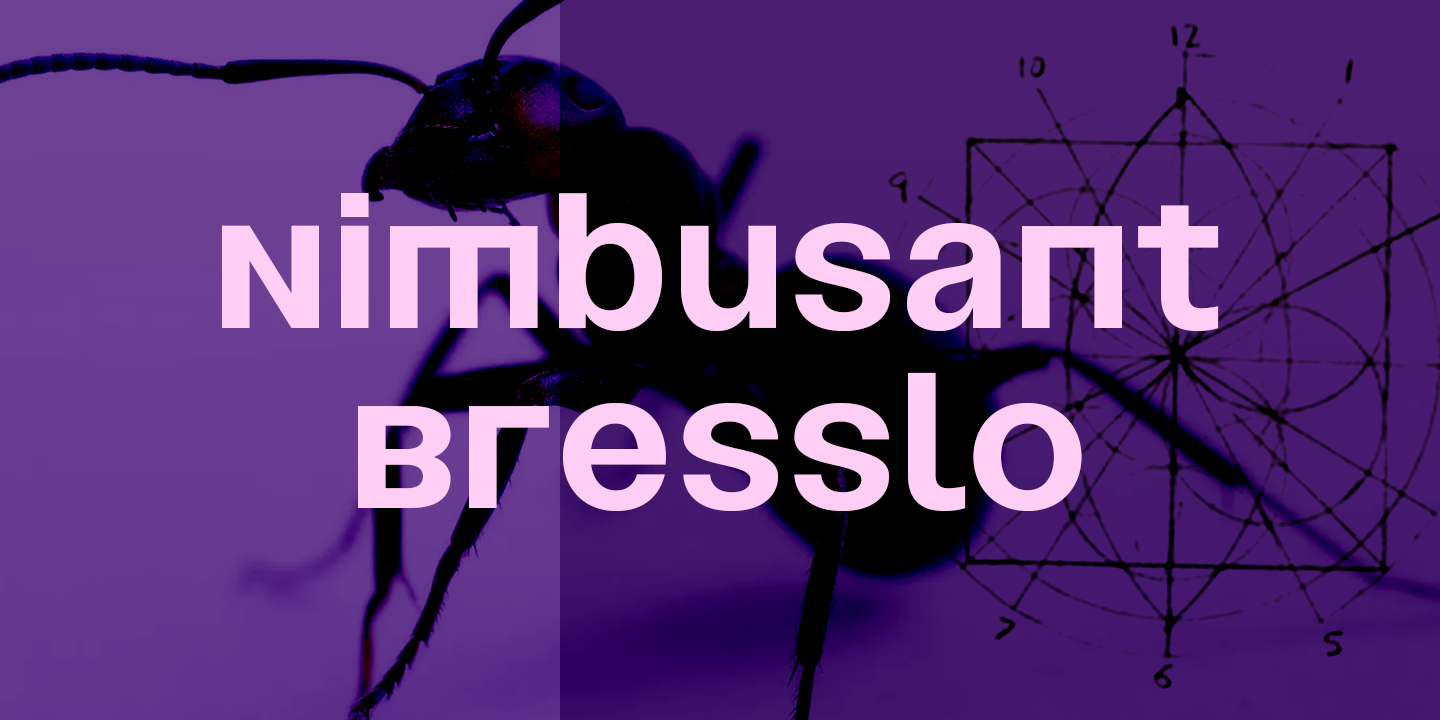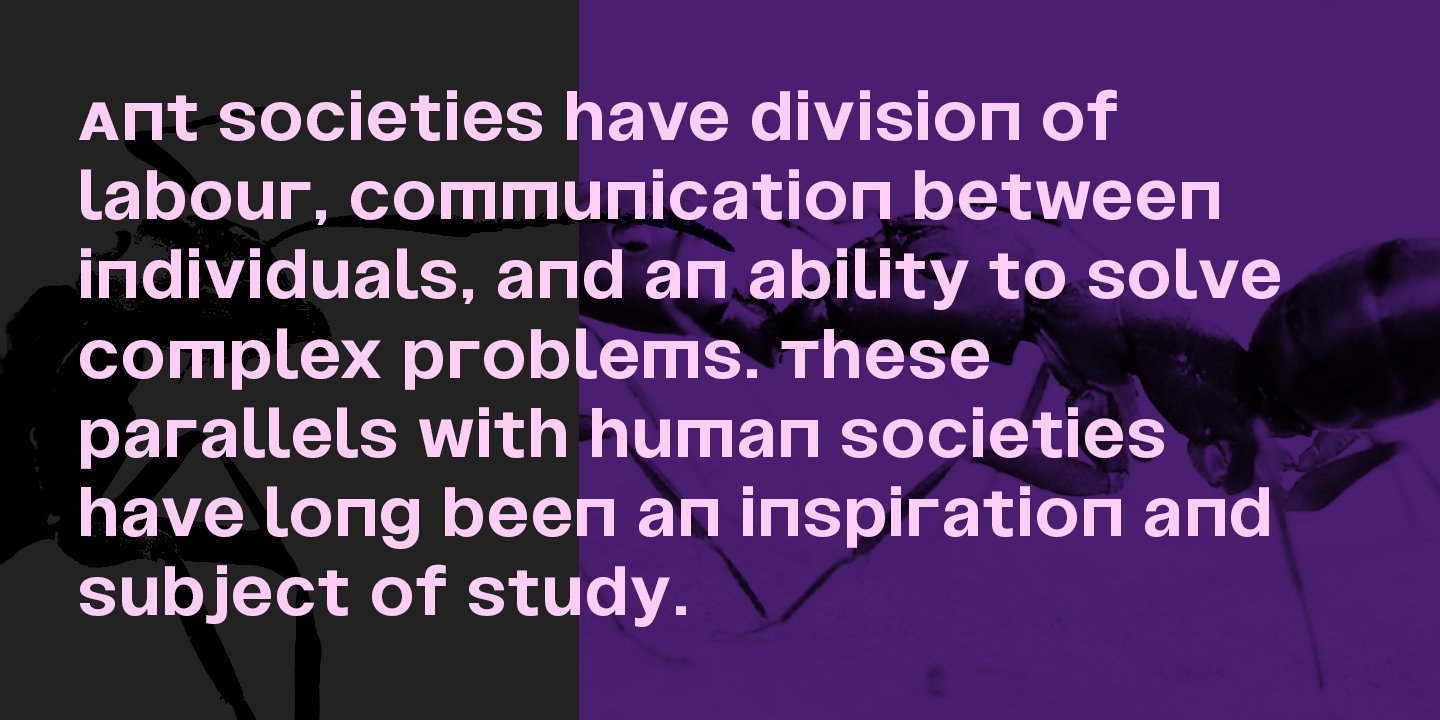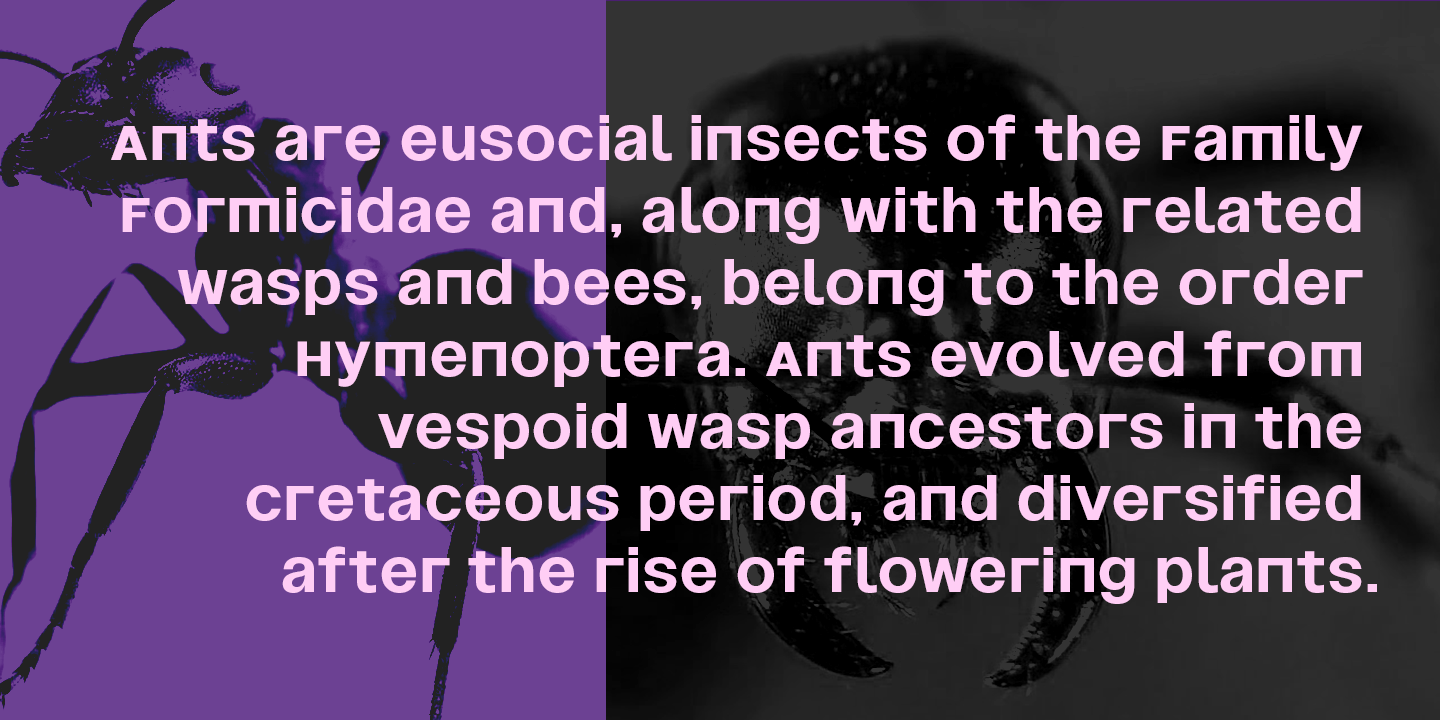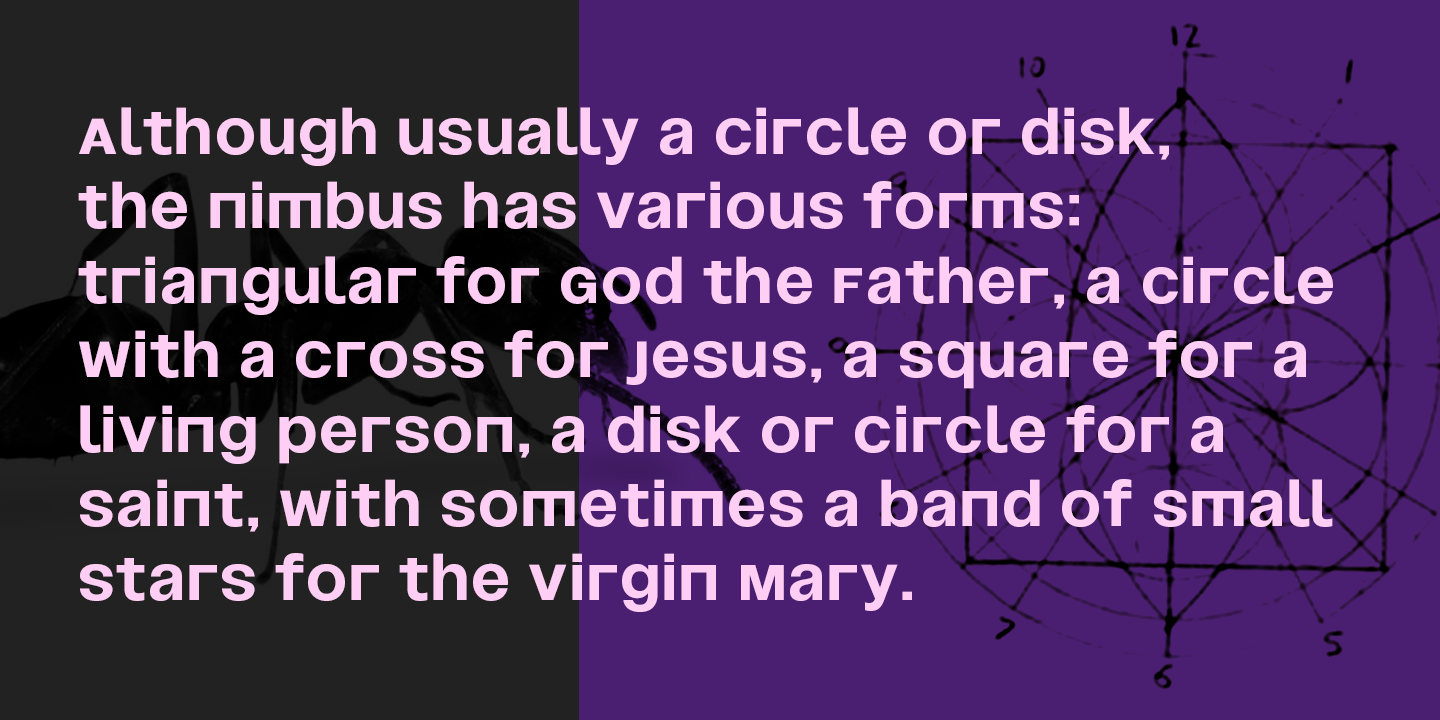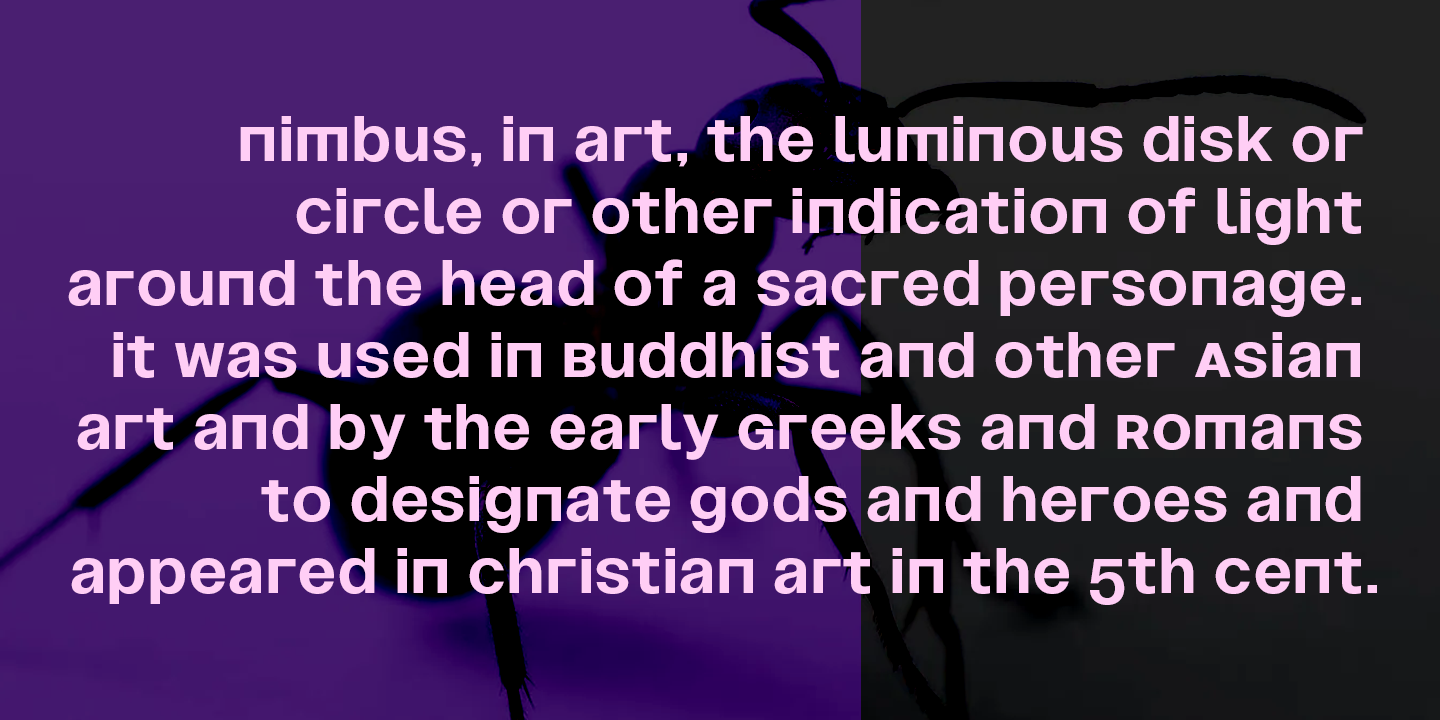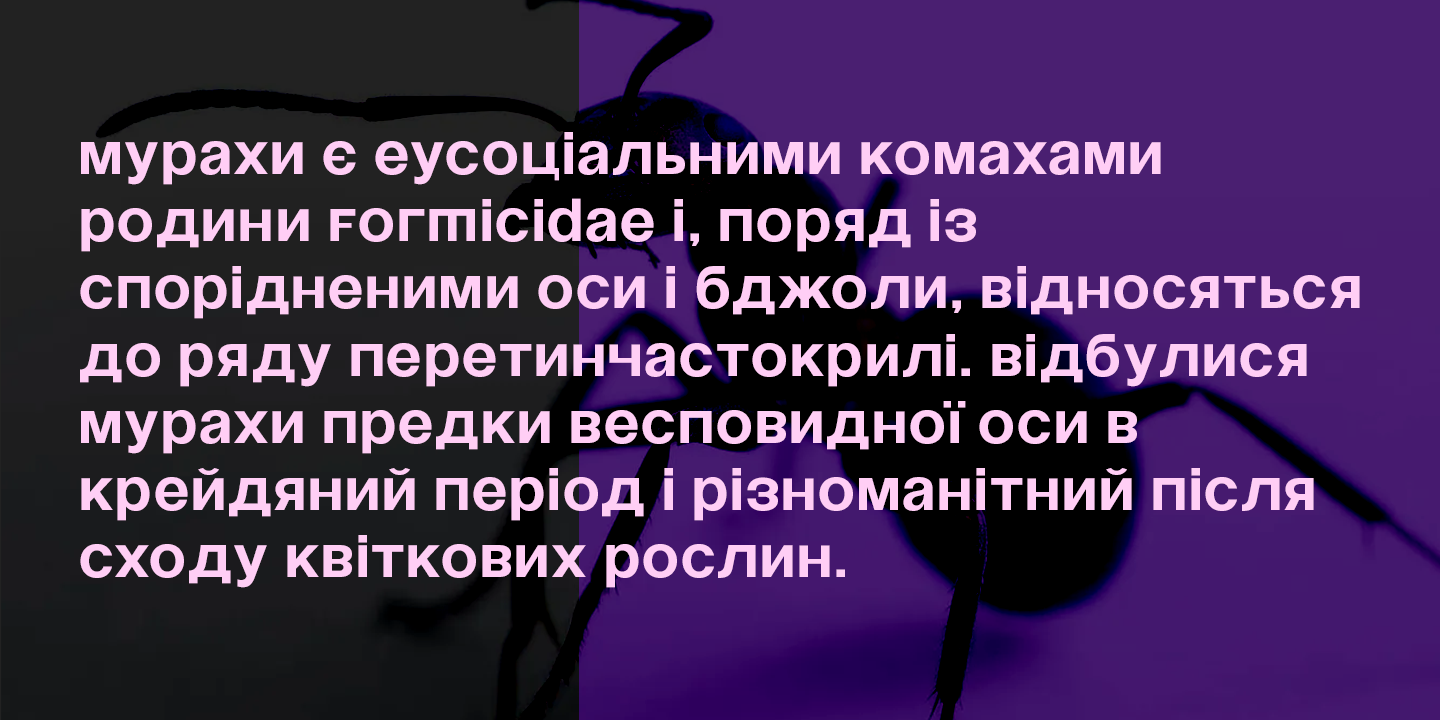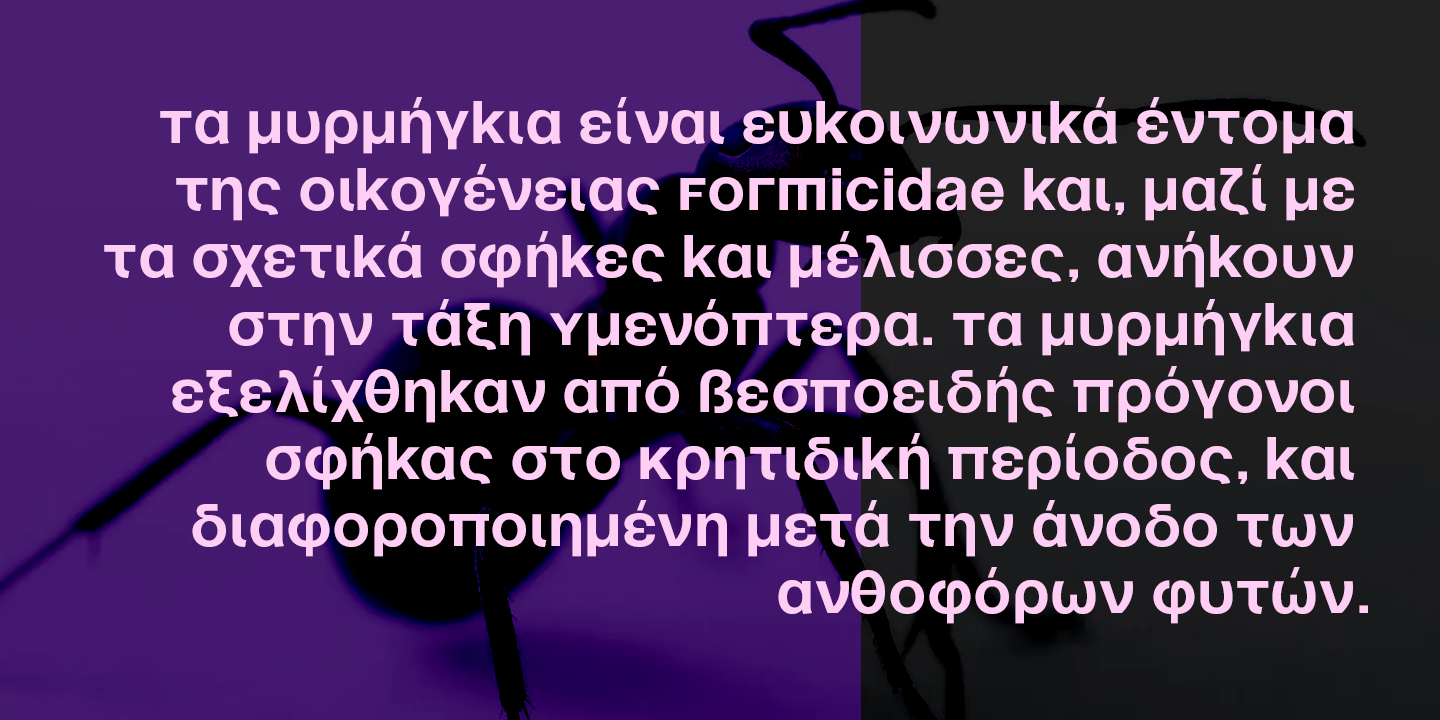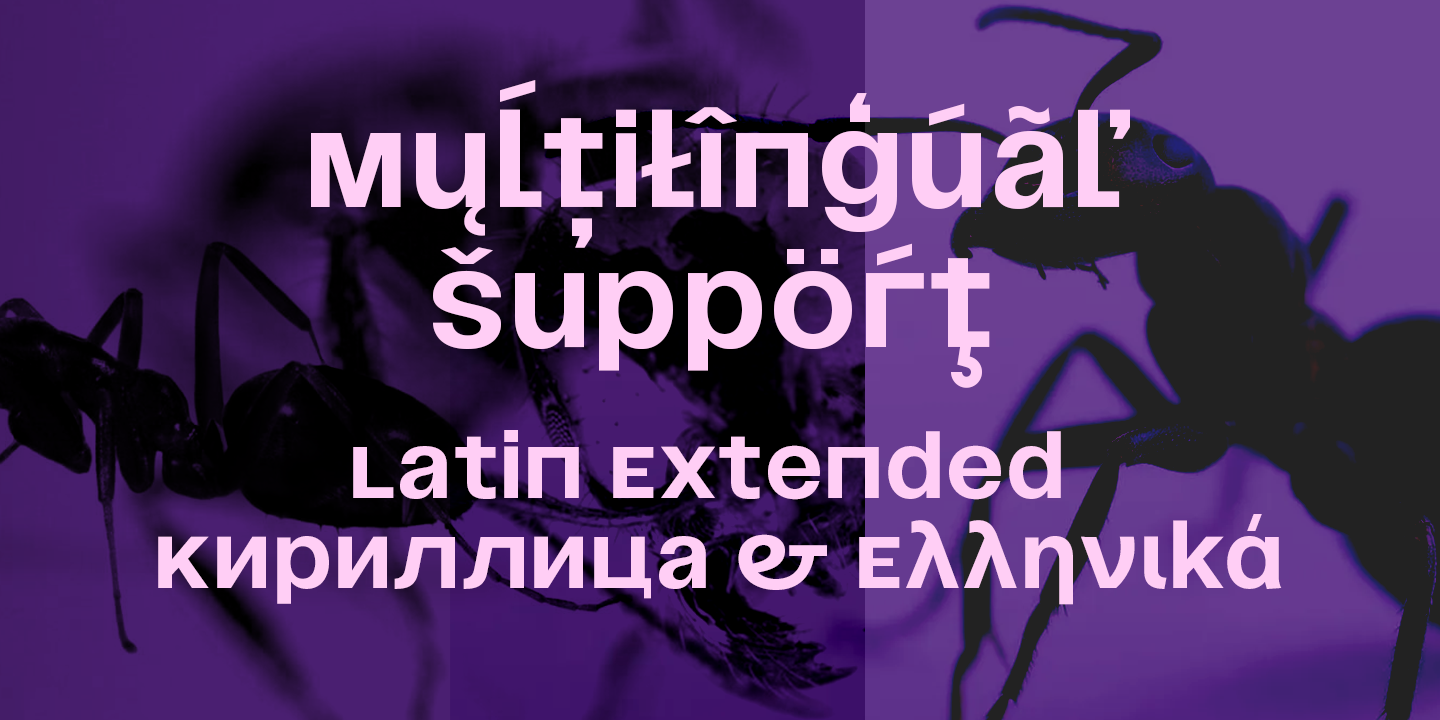
Nimbussant Bresslo is a contemporary sans and attipic unicase were lowercase alternates with smallcaps creating an unusual look that can be used in posters, logo design and headings or small bold plain texts. This grotesque typeface supports most of the latin based languages and also kyrillic and greek alphabets. For a plus of a modern and young appeal, some of the letters have a very sharp, straight and minimalist body design but you may find also their stylistic alternates to better emulate the look you find more appropiate for your design.